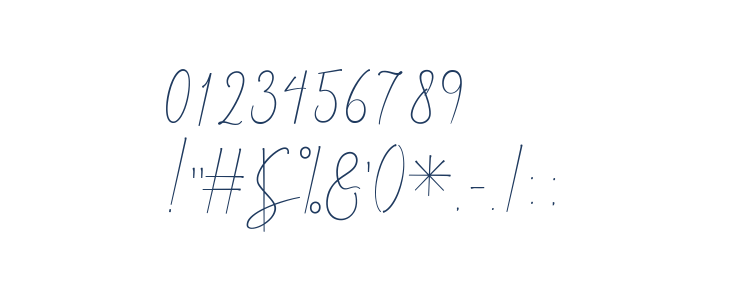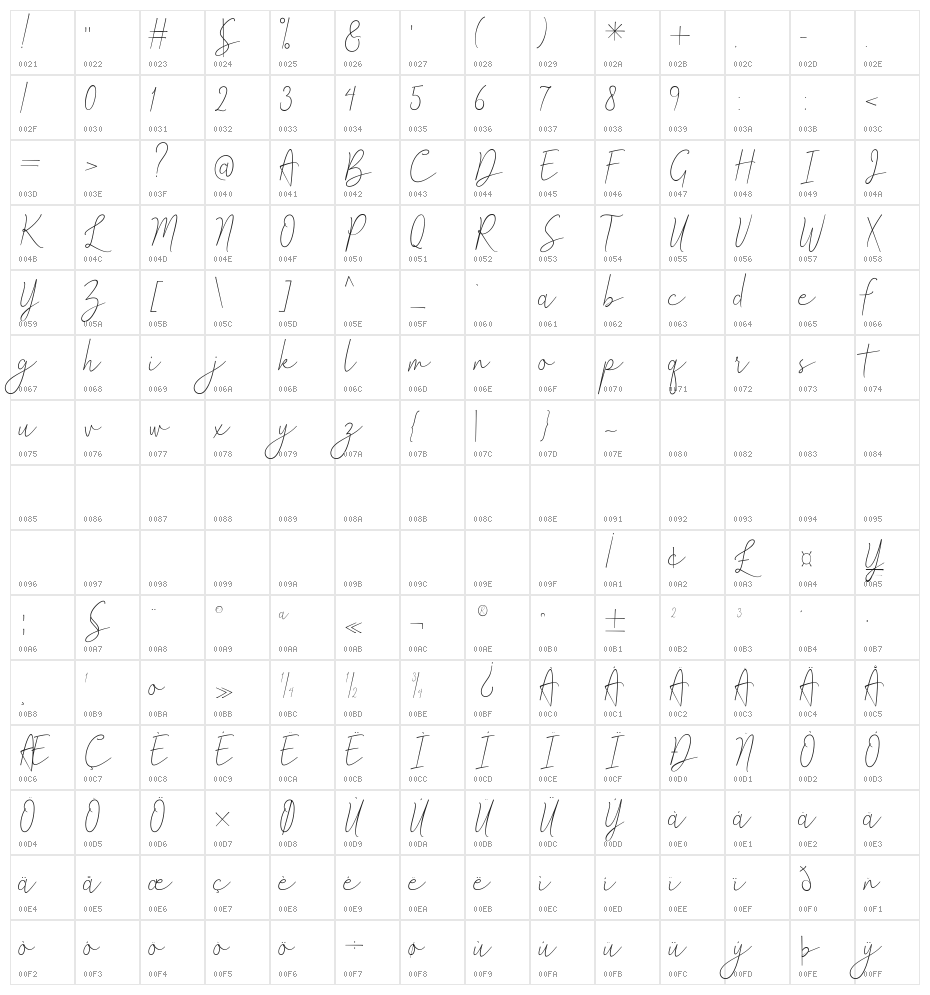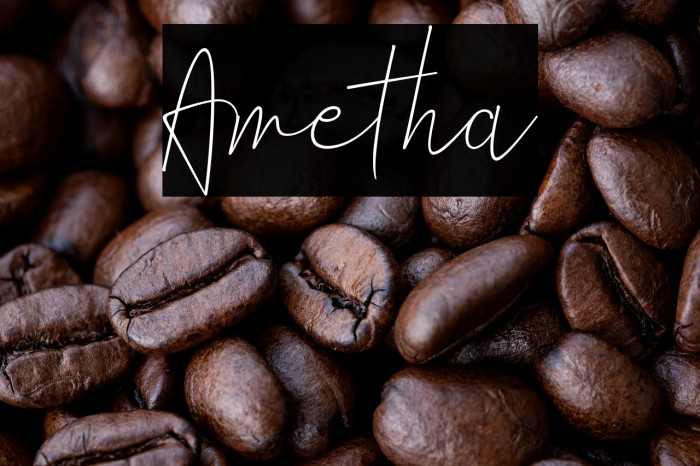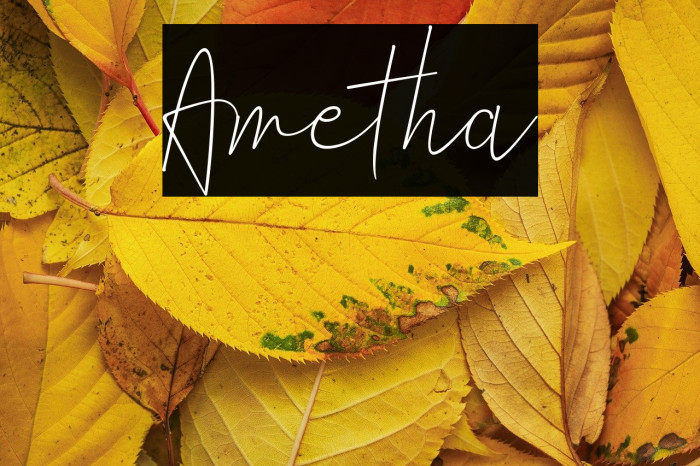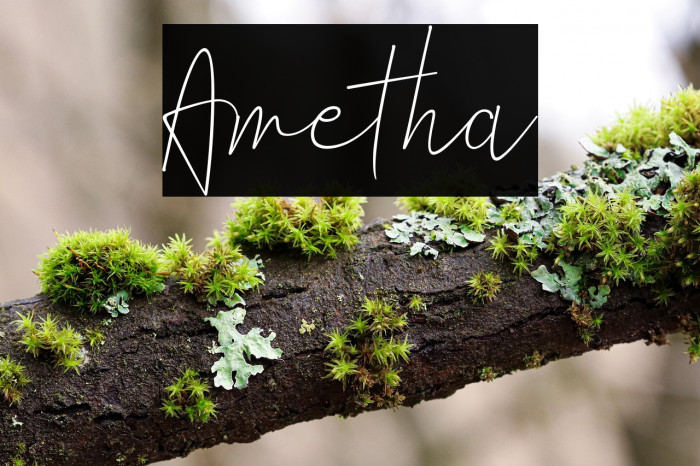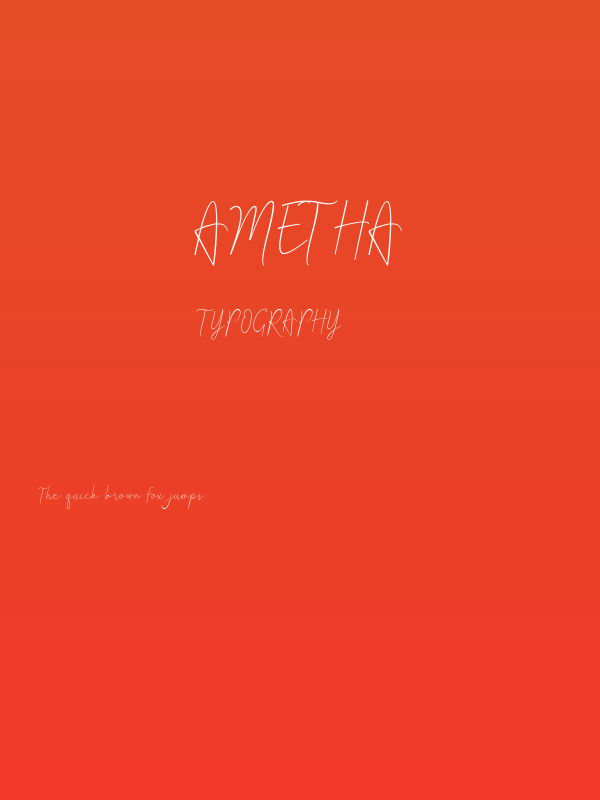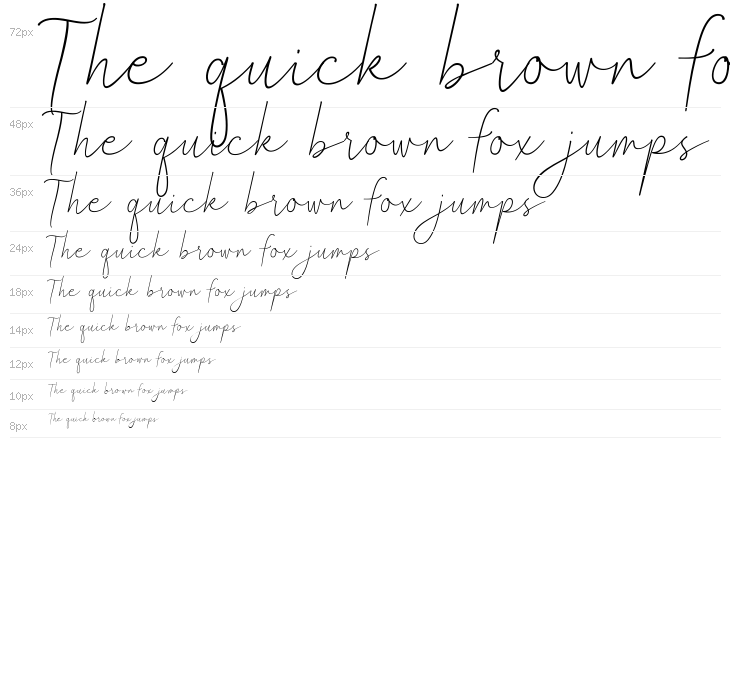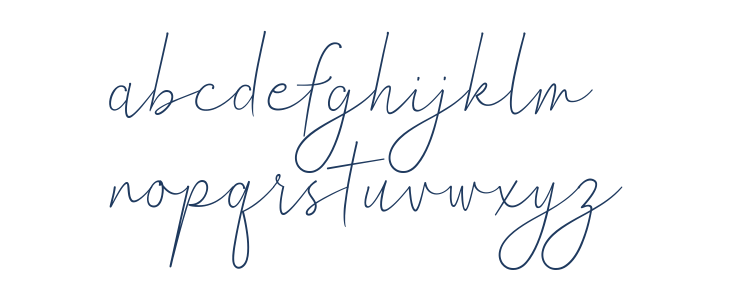
Ametha Font
Ametha Description
This font features an elegant, flowing script style that mimics the fluidity of natural handwriting. The characters are connected with smooth, continuous strokes, giving it a personal and artistic feel. The uppercase letters are slightly more embellished, while the lowercase letters maintain a consistent, graceful form. Numbers and special characters are designed to complement the overall aesthetic, maintaining the same fluidity and elegance. The thin lines and delicate curves make it suitable for projects that require a touch of sophistication and charm.
Overall StyleElegant, Artistic
Use CaseLogos, Invitations, Personal Branding
Proposed ProjectsIdeal for wedding invitations, greeting cards, personal branding, and elegant logo designs.